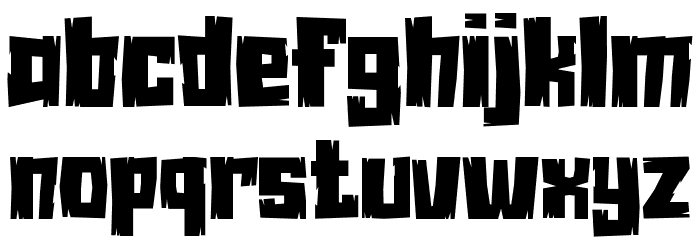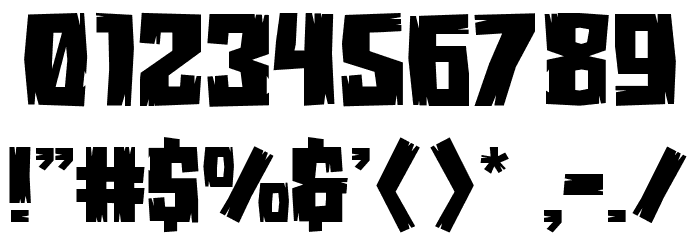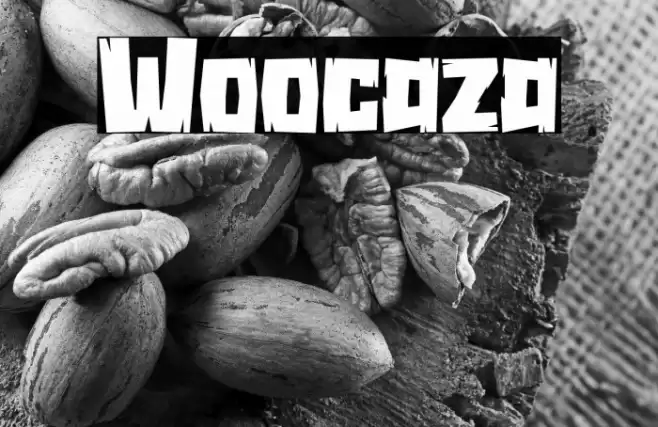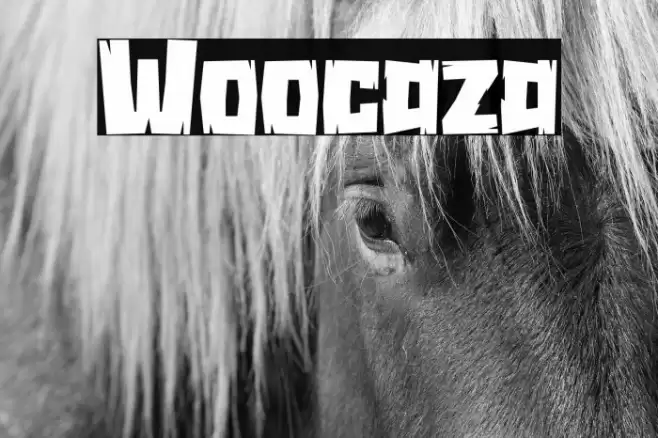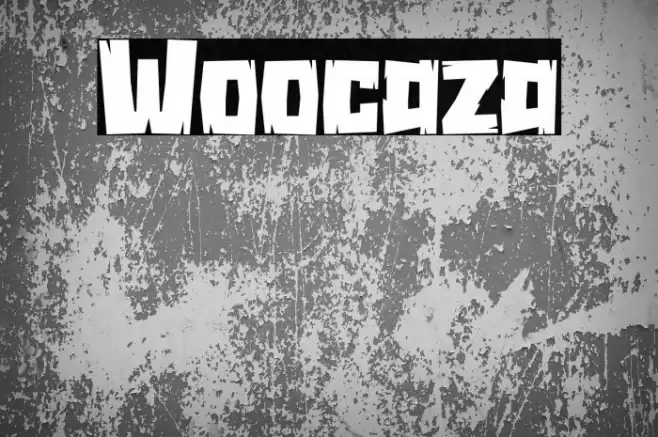
Woocaza Font
This font features a bold and dynamic design with sharp, angular edges and a slightly distressed appearance. The characters are heavily stylized, giving them a rugged and energetic feel. The uppercase and lowercase letters maintain a consistent height, contributing to a cohesive look. The numerals and special characters follow the same design principles, ensuring uniformity across all glyphs. This font's unique style makes it stand out, with its thick strokes and irregular shapes adding a sense of movement and excitement. It's perfect for projects that require a bold and eye-catching typeface.
A bold, angular font with a distressed and dynamic style.
- Font: Woocaza
- Proposed Projects: Ideal for posters, music album covers, video game titles, and branding that requires a bold statement.